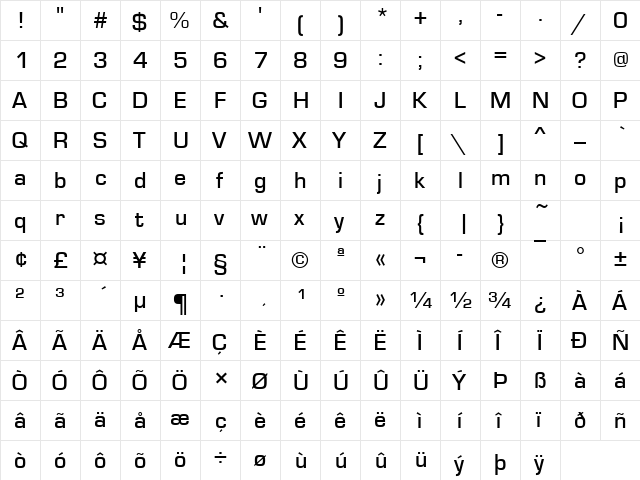
EurostileTMed Regular
Design Context for EurostileTMed Typeface
EurostileTMed offers clean, dependable letterforms without strong stylistic allegiance, making it a practical choice for designers who need flexibility.